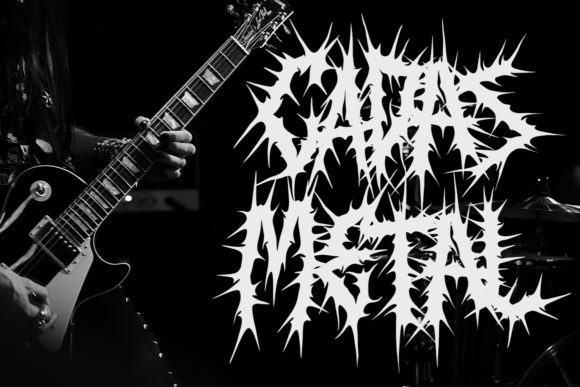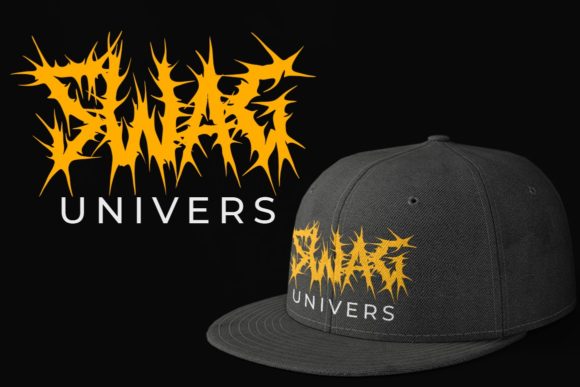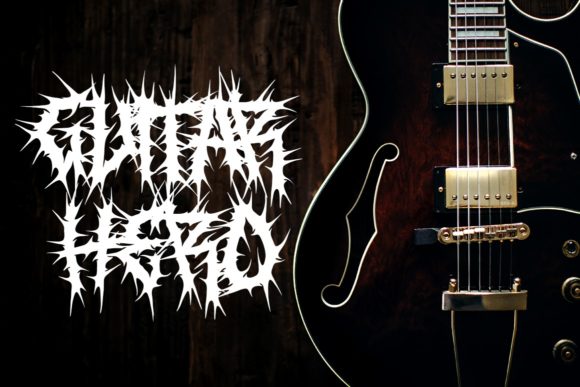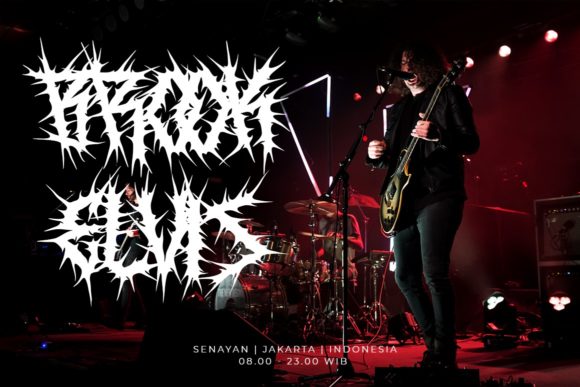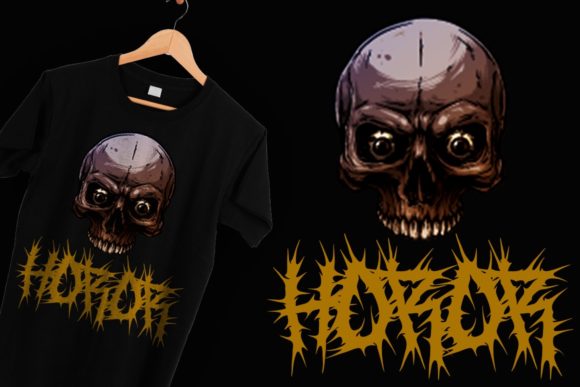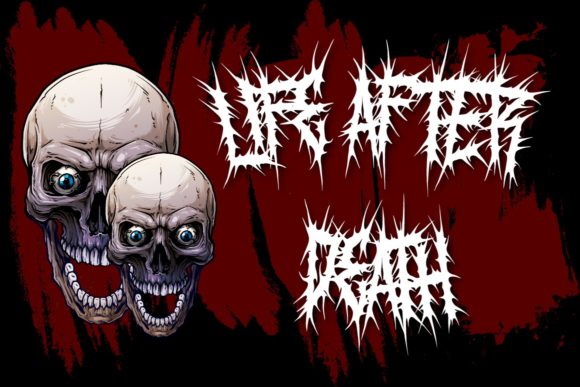
Introduction to Rose Thorns Font
Rose Thorns is an incredibly unique and dramatic looking blackletter font.
Add this strong lettered font to your designs and make them stand out .
Key Features of Rose Thorns Font
Why Choose Rose Thorns Font?